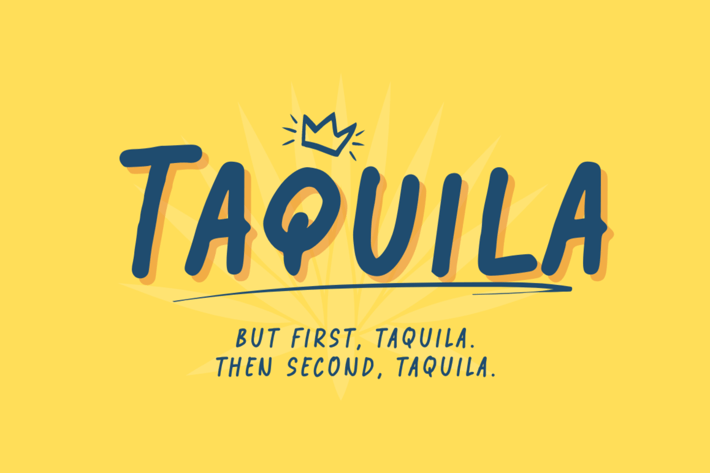
Taquila - Handwritten Font
Introducing "Taquila," a charming handwritten font that brings a personal touch to your designs. With its natural and flowing strokes, "Taquila" is perfect for invitations, greeting cards, branding, and more. Its authentic handwritten style adds warmth and personality, making your projects stand out. Embrace the beauty of hand-crafted lettering with "Taquila" and infuse your work with a unique, personal flair.
- Numeral & Punctuation
- Multilingual support